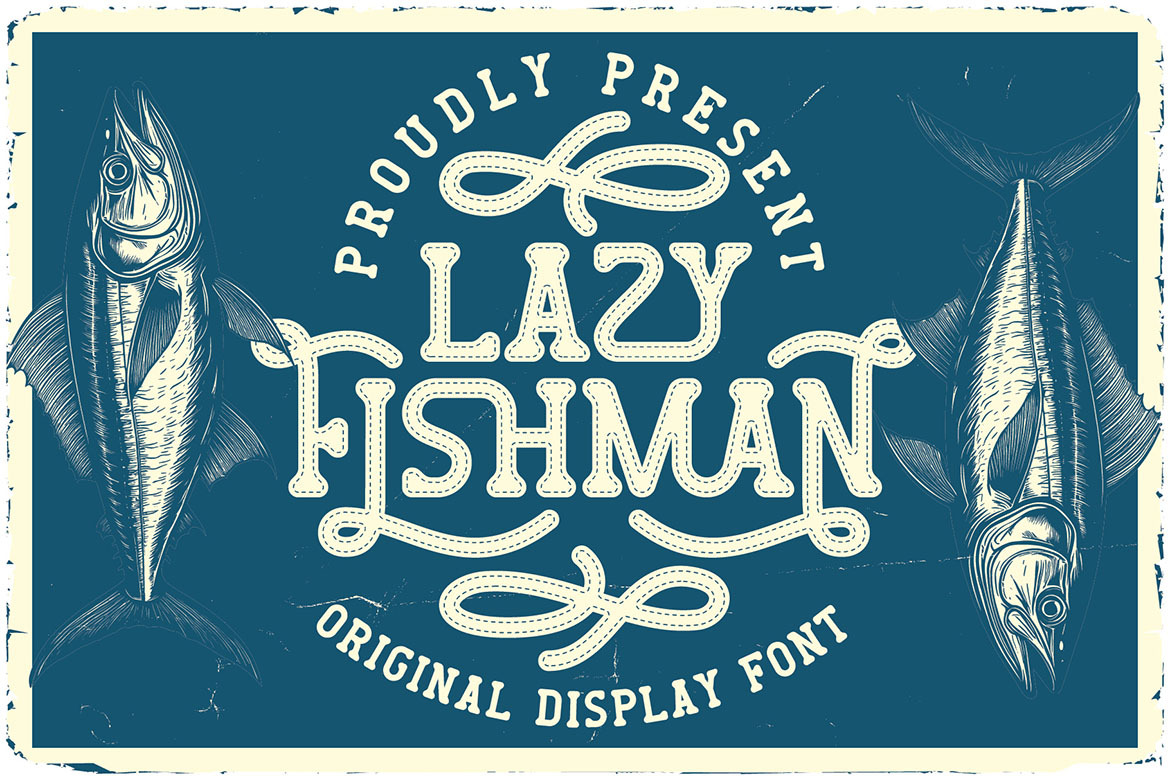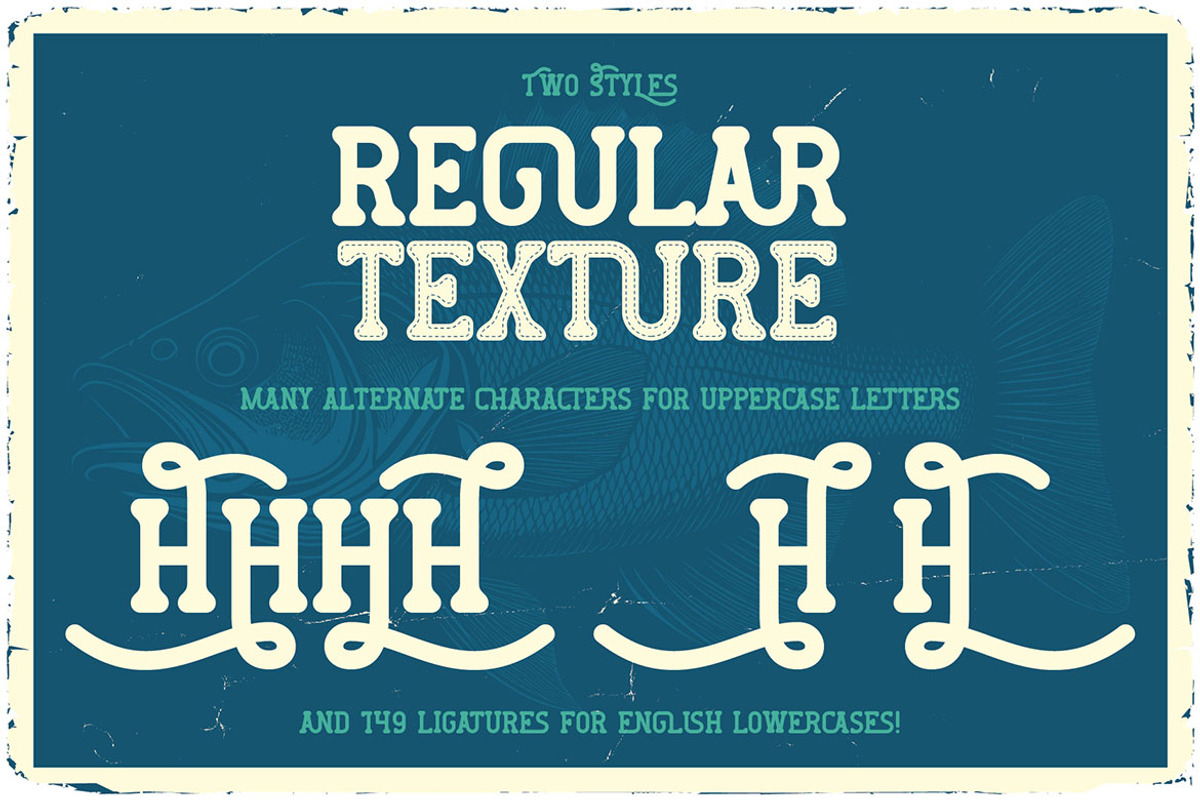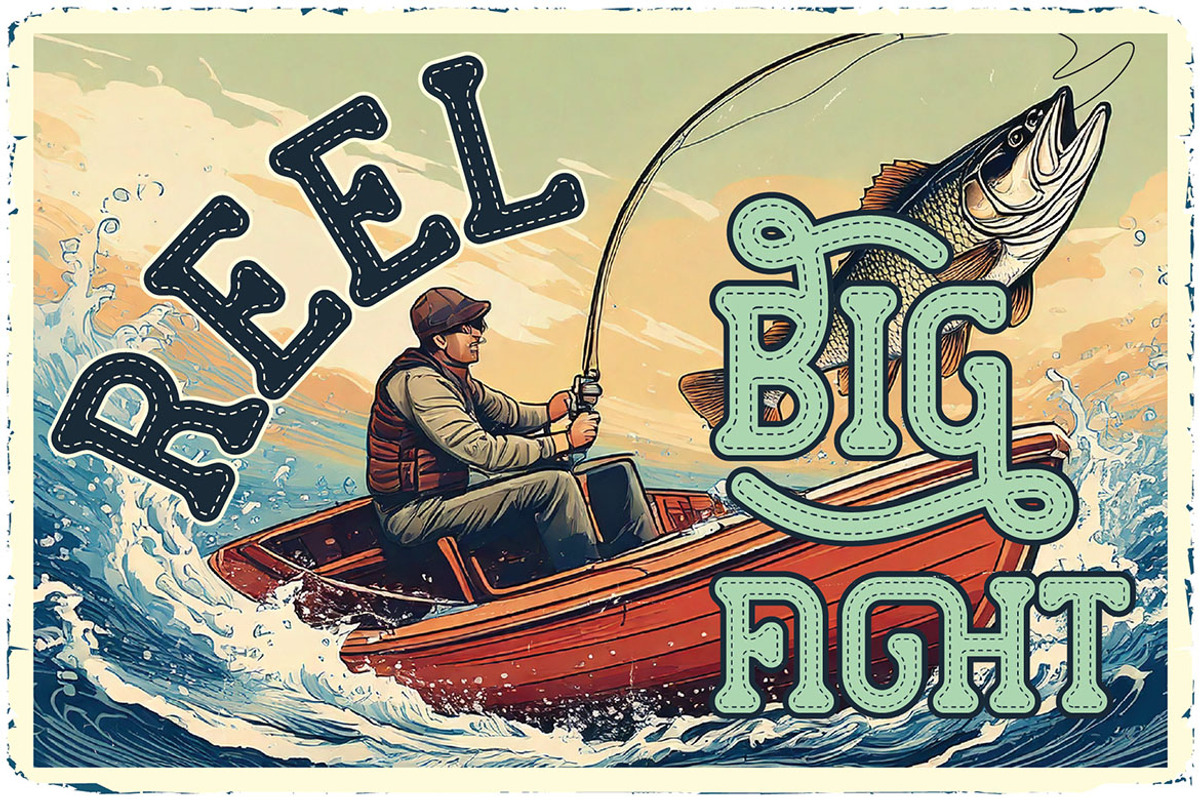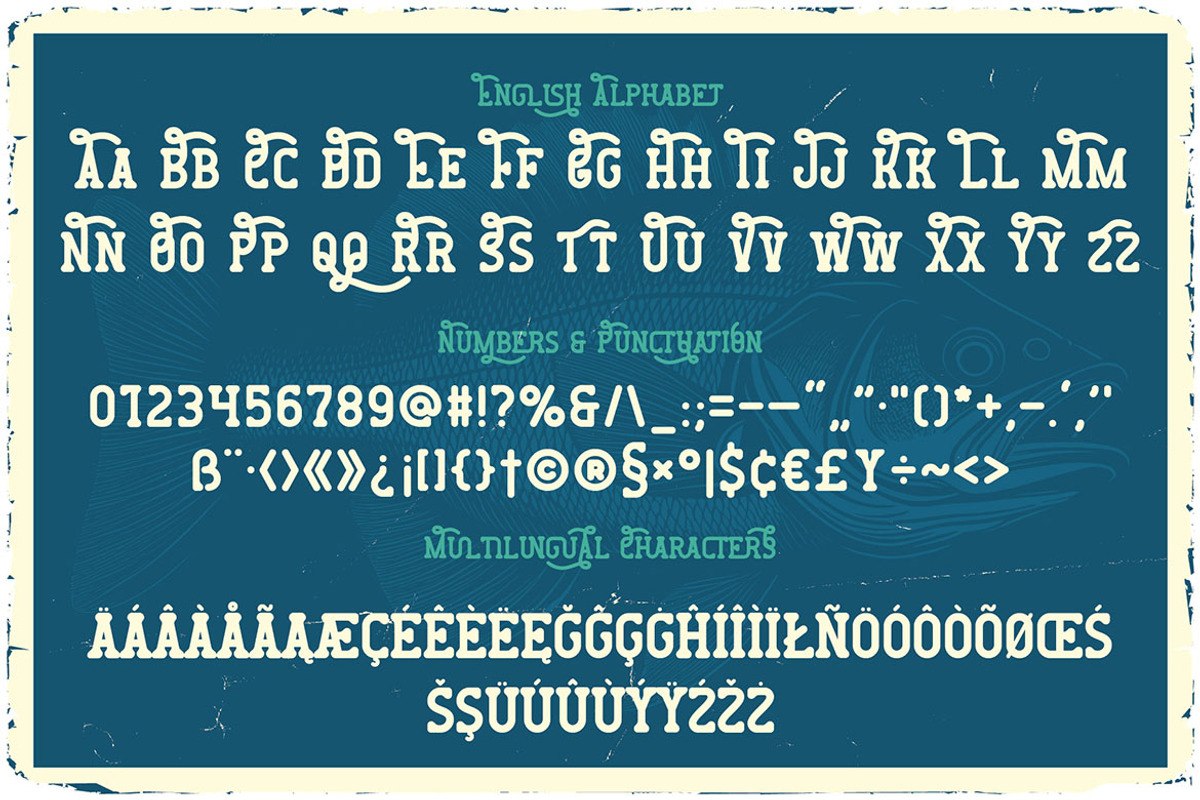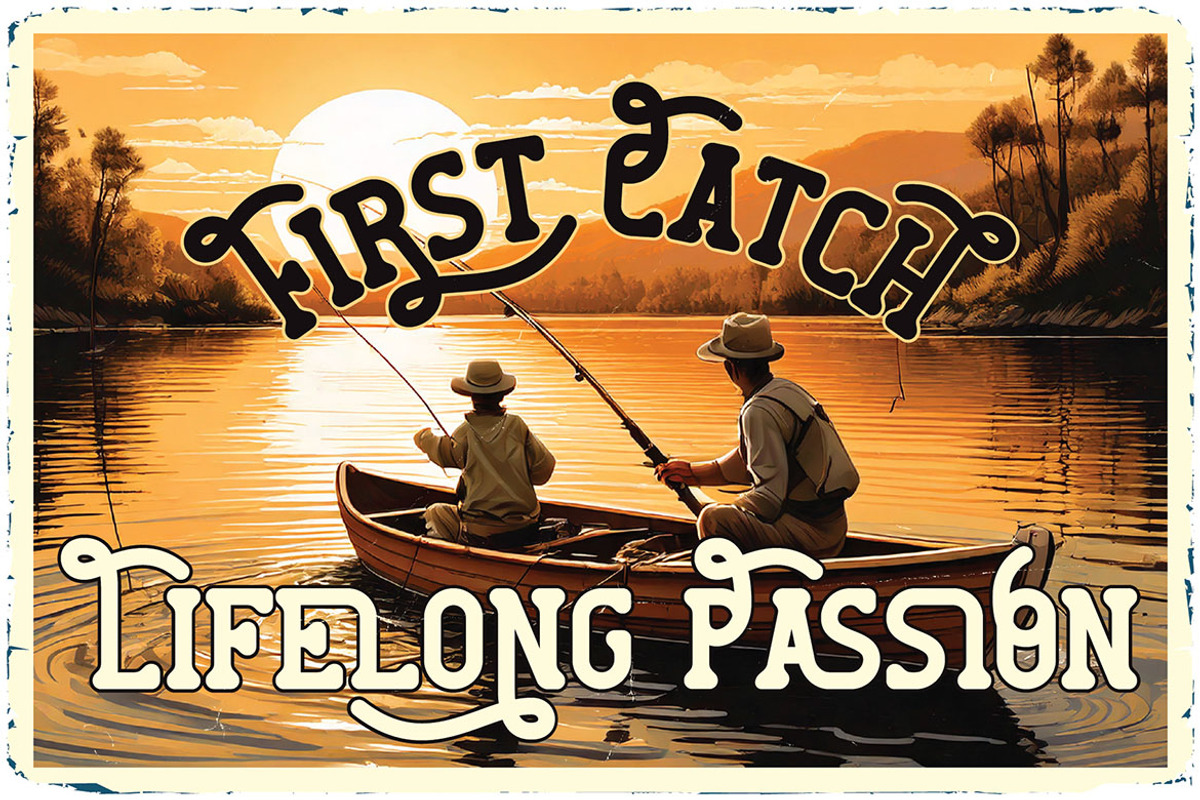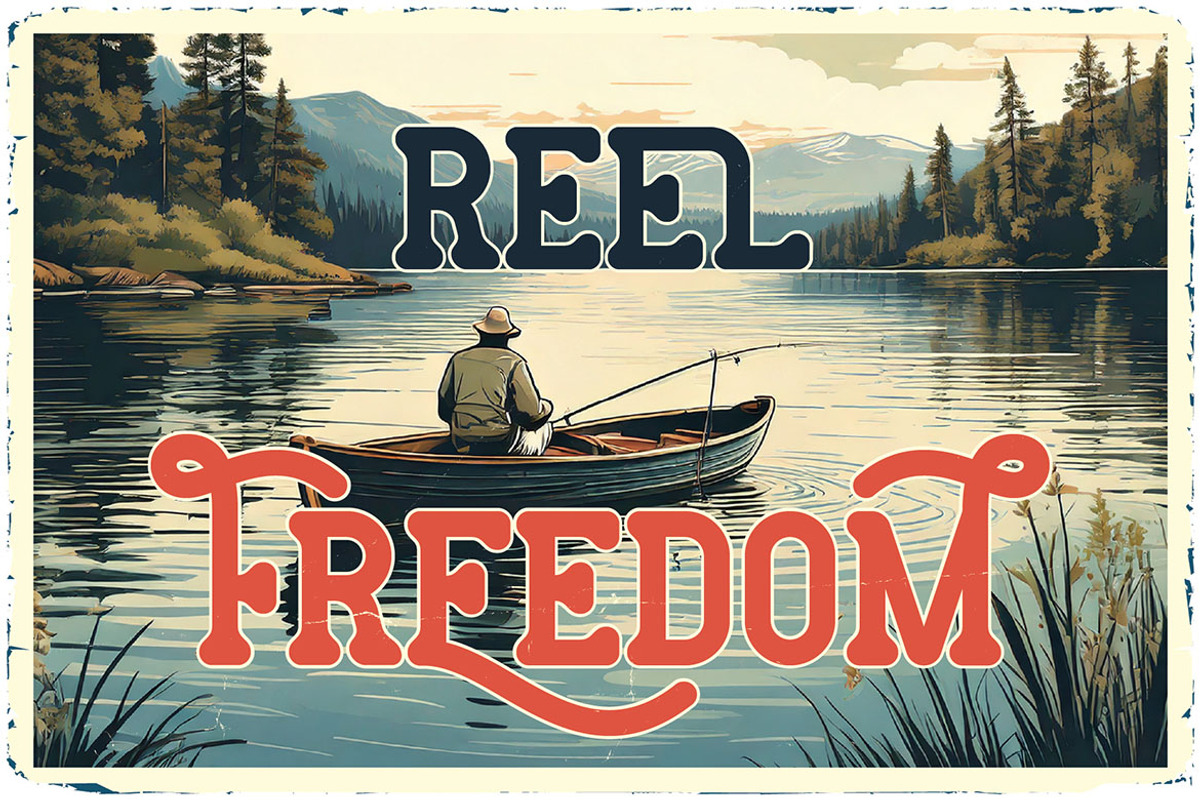
Lazy Fishman Retro Display Font
Unique, classic, rounded, elegant, retro, vintage, western & serif display font. Comes with multilingual support, 149 ligatures & lot of alternates + 2 font versions - great for your new logo, monogram or branding project.
- 2 font versions - regular & texture
- Multilingual support, 149 ligatures & lot of alternates